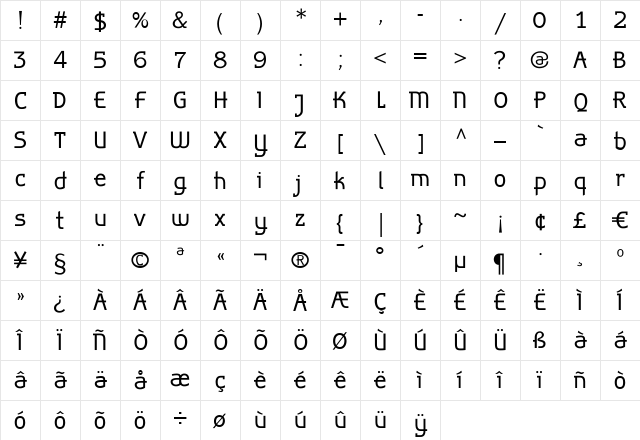
AlphaBravo Normal Free Font
AlphaBravo Normal
Foundry: Gert Wiescher, Wiescher-Design, Munich, Germany, www.wiescher-design.de
Design Context for AlphaBravo
AlphaBravo is a composed and adaptable typeface that performs quietly and consistently across a wide range of design contexts.
Who designed the AlphaBravo Normal font?
This font was published by Gert Wiescher, Wiescher-Design, Munich, Germany, www.wiescher-design.de. Check the technical specs section for copyright and designer details.